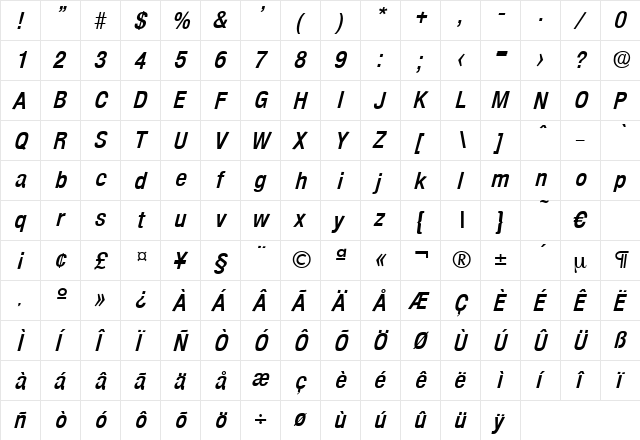
Olnova-DemiBoldCondIta Regular Font Preview
Design Context for Olnova-DemiBoldCondIta Typeface
Olnova-DemiBoldCondIta takes a measured approach to typography — its balanced proportions and neutral character make it a reliable workhorse for both digital and print work. Its bold stroke weight gives it real presence on the page. The condensed width makes it efficient for tight spaces without sacrificing legibility.